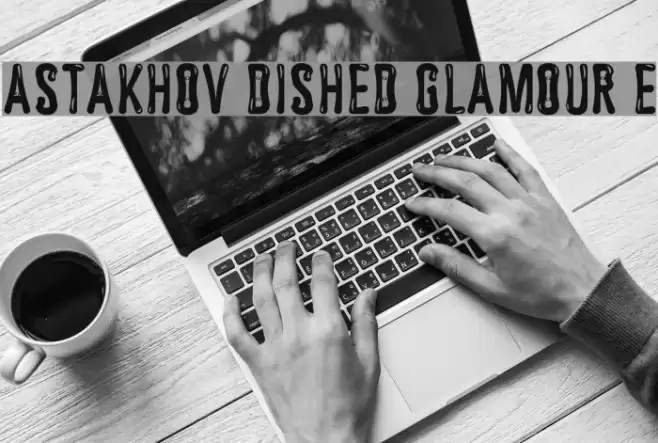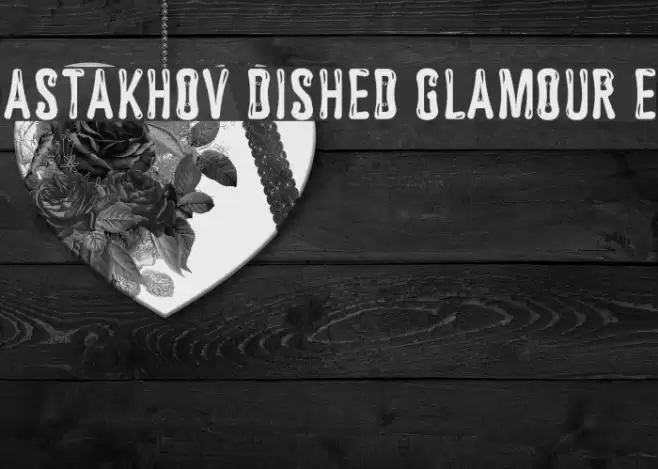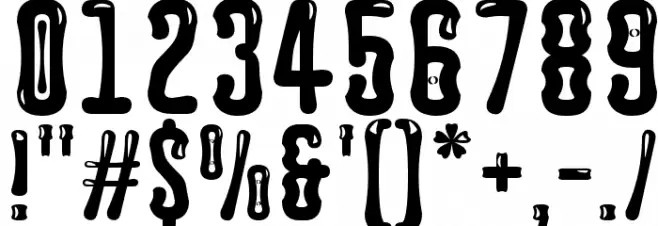
Astakhov Dished Glamour E Font
Astakhov Dished Glamour E Description
This font features a bold and decorative style with a unique, playful twist. Each character is designed with a sense of movement, incorporating fluid, wavy lines that give it a dynamic appearance. The letters are thick and robust, with a high contrast between the thick and thin strokes, adding to its dramatic flair. The overall design is eye-catching and distinctive, making it suitable for creative and artistic projects. The characters are well-spaced, ensuring readability while maintaining their artistic integrity. This font is perfect for making a statement in any design.
A bold, decorative font with fluid, wavy lines and high contrast strokes from Uncategorized fonts.
- Proposed Projects: Ideal for posters, album covers, branding, and any project requiring a bold, artistic touch.